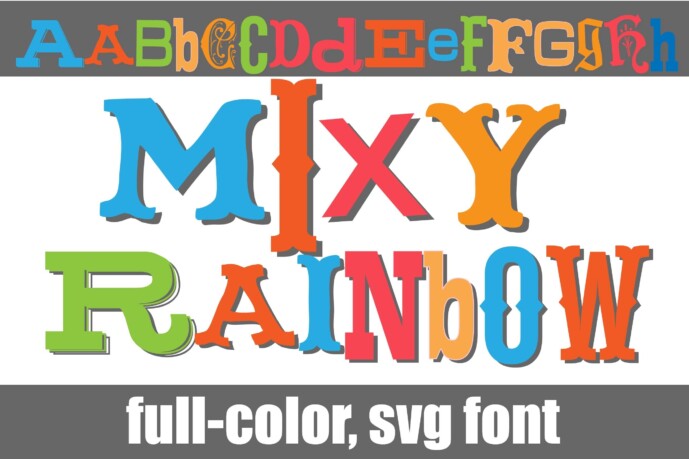
Mixy Rainbow Font
This full-color font features a mix of font styles in a ransom note style. There is an alt case of additional colors of each letter that you can access through your system or Silhouette’s glyph map.